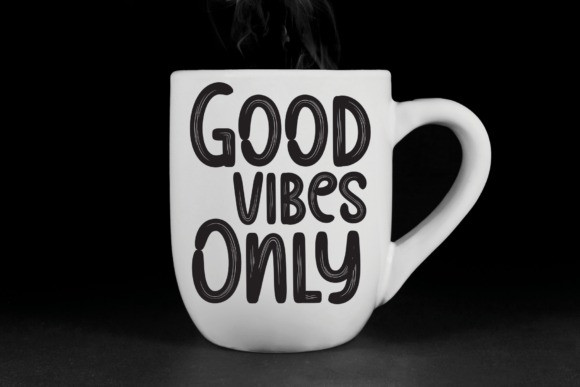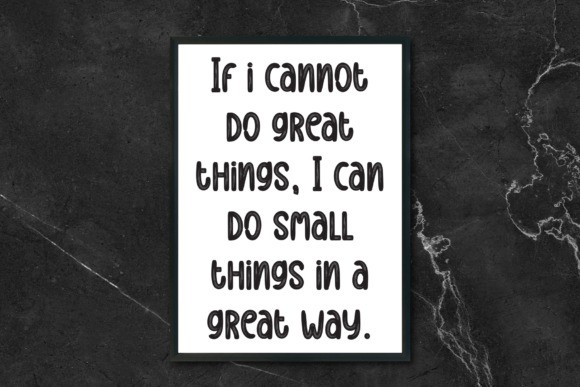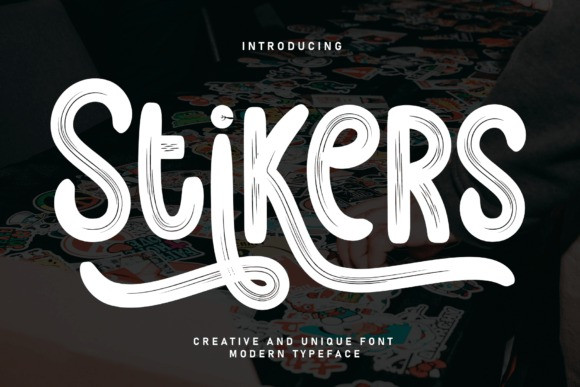
Stikers Brush Font
Stikers Brush Font is a straightforward and bold brush display typeface that makes a strong statement. With its clean lines and bold strokes, this font adds a no-nonsense, eye-catching element to your designs. Perfect for headlines, signage, and attention-grabbing graphics, Stikers is a versatile choice for making your message stand out.